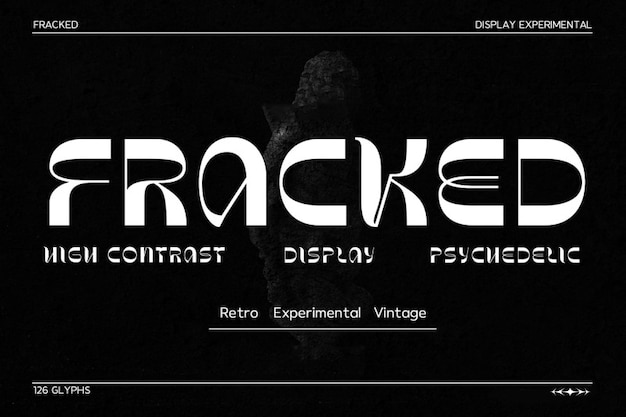
Fracked Font
Drizy Studio
Psychedelic, vintage, and retro, Fracked embodies a throwback to the vibrant, kaleidoscopic styles of past eras. Its design exudes a mesmerizing blend of psychedelic elements and vintage aesthetics. With vibrant colors and swirling patterns reminiscent of retro psychedelia, this font transports designs back in time, capturing the essence of a bygone era while infusing a sense of groovy nostalgia into modern visual compositions.